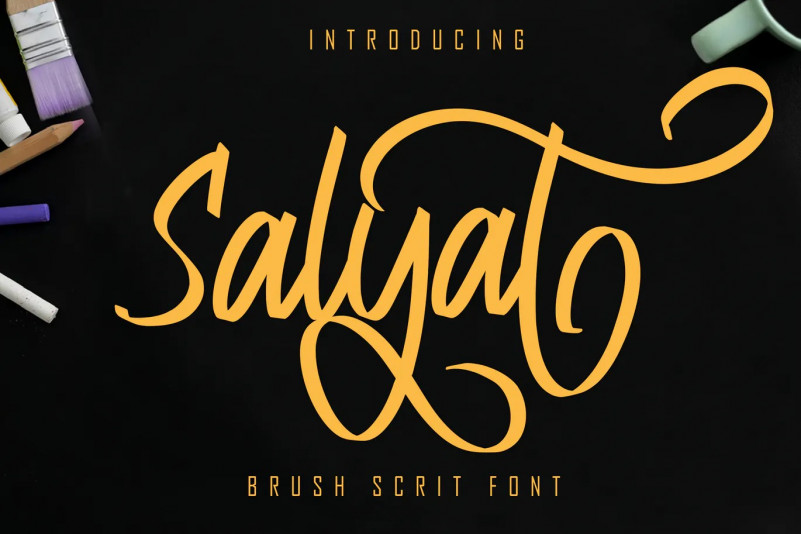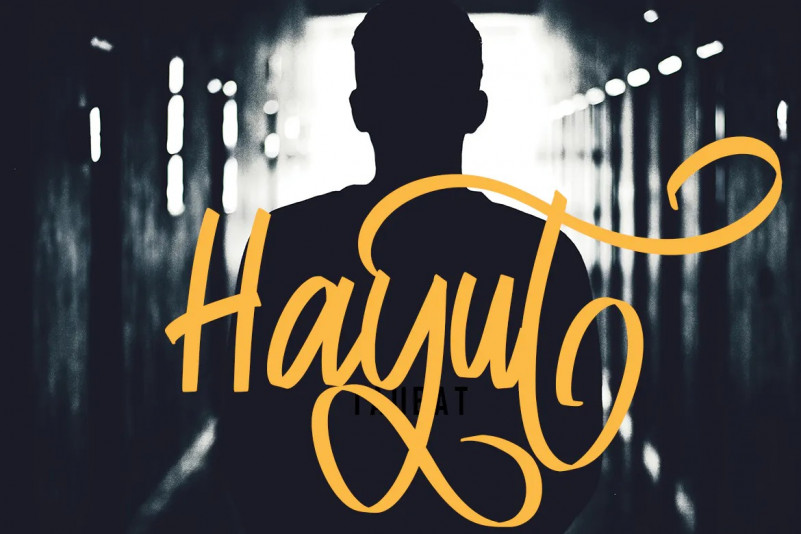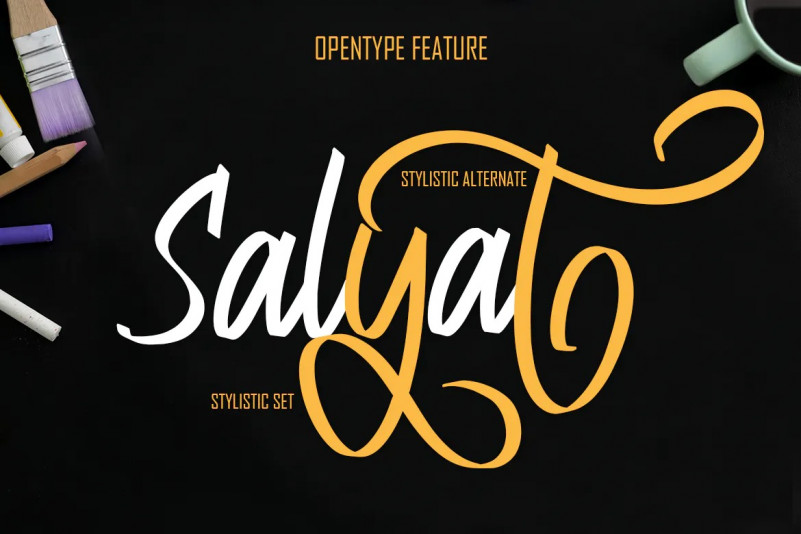
Salyat Font
Salyat Beauty Font This is our newest product called Salyat Beauty Font. This is a Beautiful font designed according to general needs Salyat is a very good font for logos, blogs / web headlines, clothing, invitations, posters, cafe / restaurant signs, and many others.